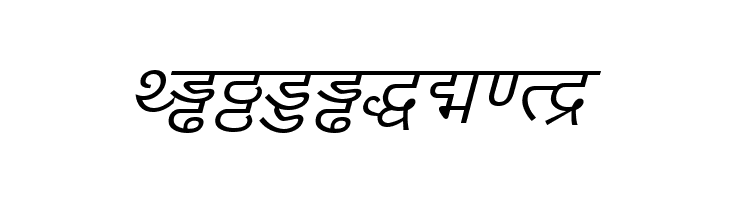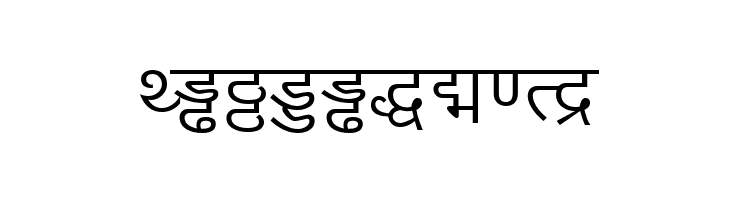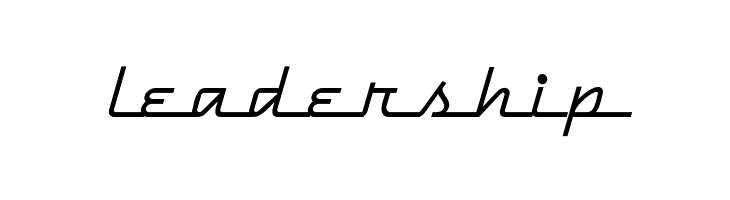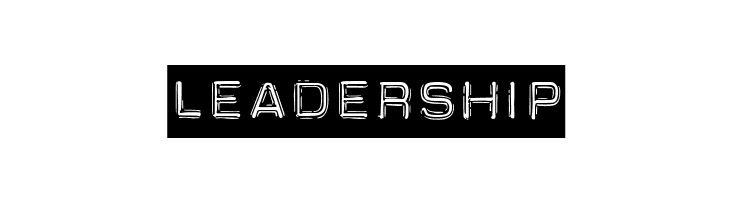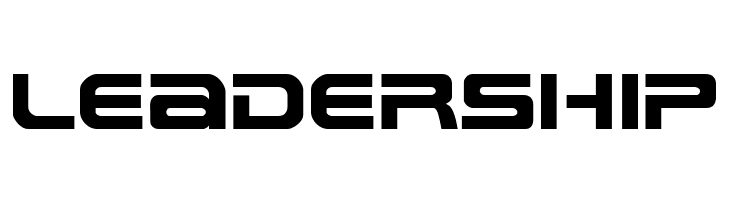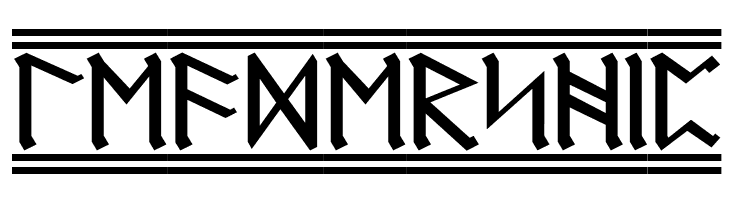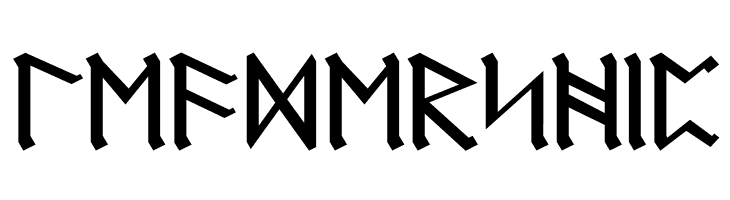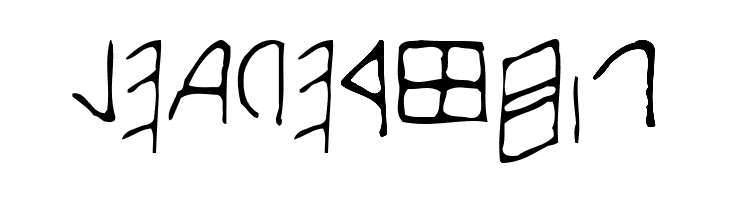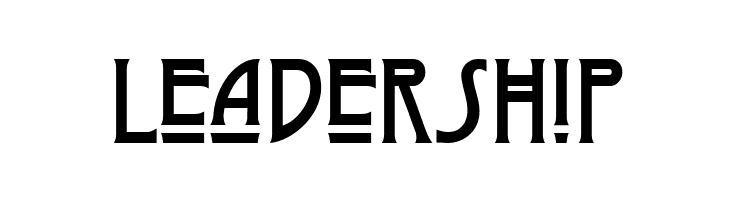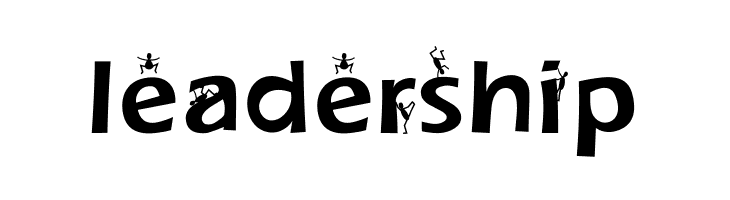
A flowing script font with elegant, connected letters and a dynamic slant.
A fluid and elegant script font with smooth, flowing lines.
A bold, grungy font with a bubble-like texture and rough edges.
A modern script font with elegant flourishes and consistent stroke weight.
A playful, hand-drawn font with an organic, whimsical style.
A decorative script font with a modern, calligraphic flair.
A playful, hand-drawn font with circular outlines around each character.
A bold, geometric font with a futuristic and modern design.
A bold, tire tread-inspired font with a rugged, industrial style.
A modern serif font with sharp, angular serifs and clean lines, offering elegance and sophistication.
A bold, decorative serif font with elegant curves and strong presence.
A sophisticated italic font with elegant, flowing lines and refined curves.
A font inspired by early Western Greek scripts with an ancient, hand-drawn aesthetic.
A futuristic, geometric font with bold, angular letterforms.
A pixelated, retro-style font with a monospaced appearance, ideal for nostalgic and gaming themes.